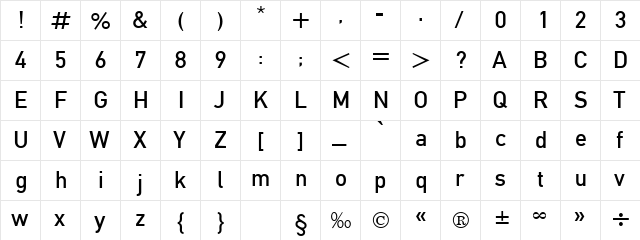
font134 Regular Font Preview
font134 Regular
font134 Regular Font Details
Design Context for font134 Typeface
font134 is a composed and adaptable typeface that performs quietly and consistently across a wide range of design contexts.